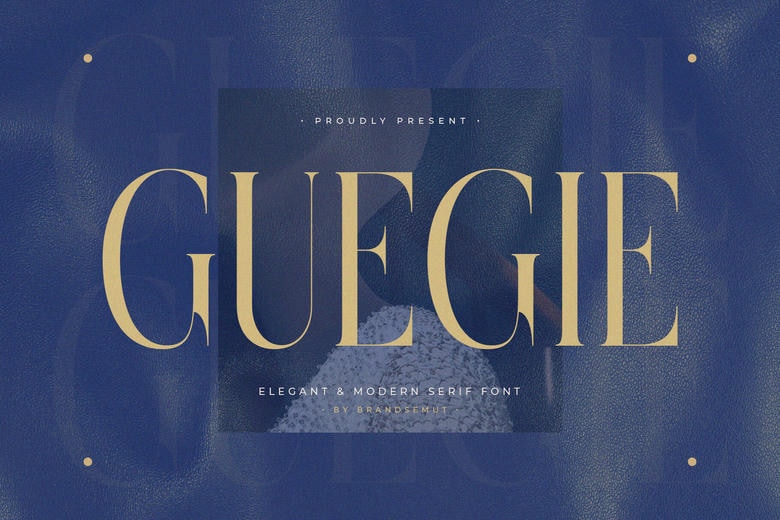
Guegie Font
Guegie is a refined and contemporary serif typeface carefully designed in order to convey an upper-upscale, business-like, and classic feel. With the harmonized letter proportions and the powerful typographic details, Guegie is a modern character that does not lose the feel of classic serif design.
This typeface is ideal to suit many different design uses including high end logos, magazine design, weddings and corporate identity and packaging. Each character is set to settle to make the maximum legibility at small sizes and have the maximum essence of elegance at large headlines.